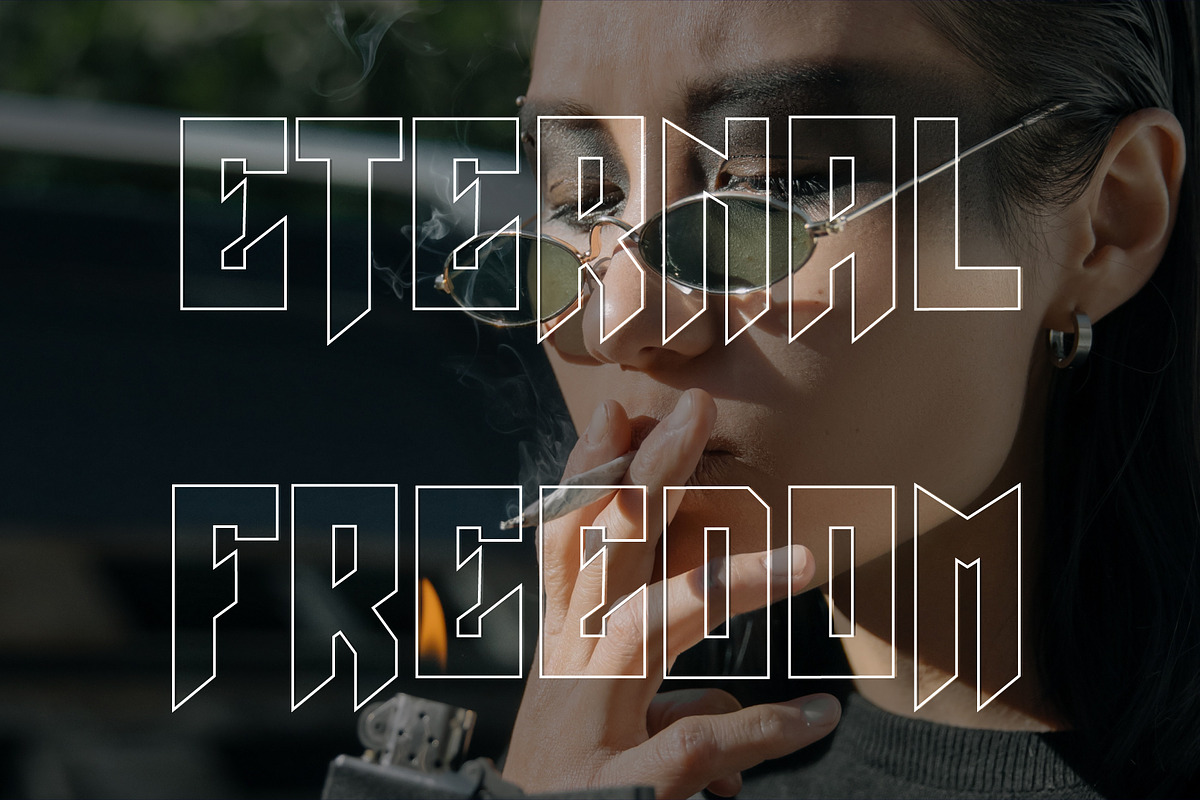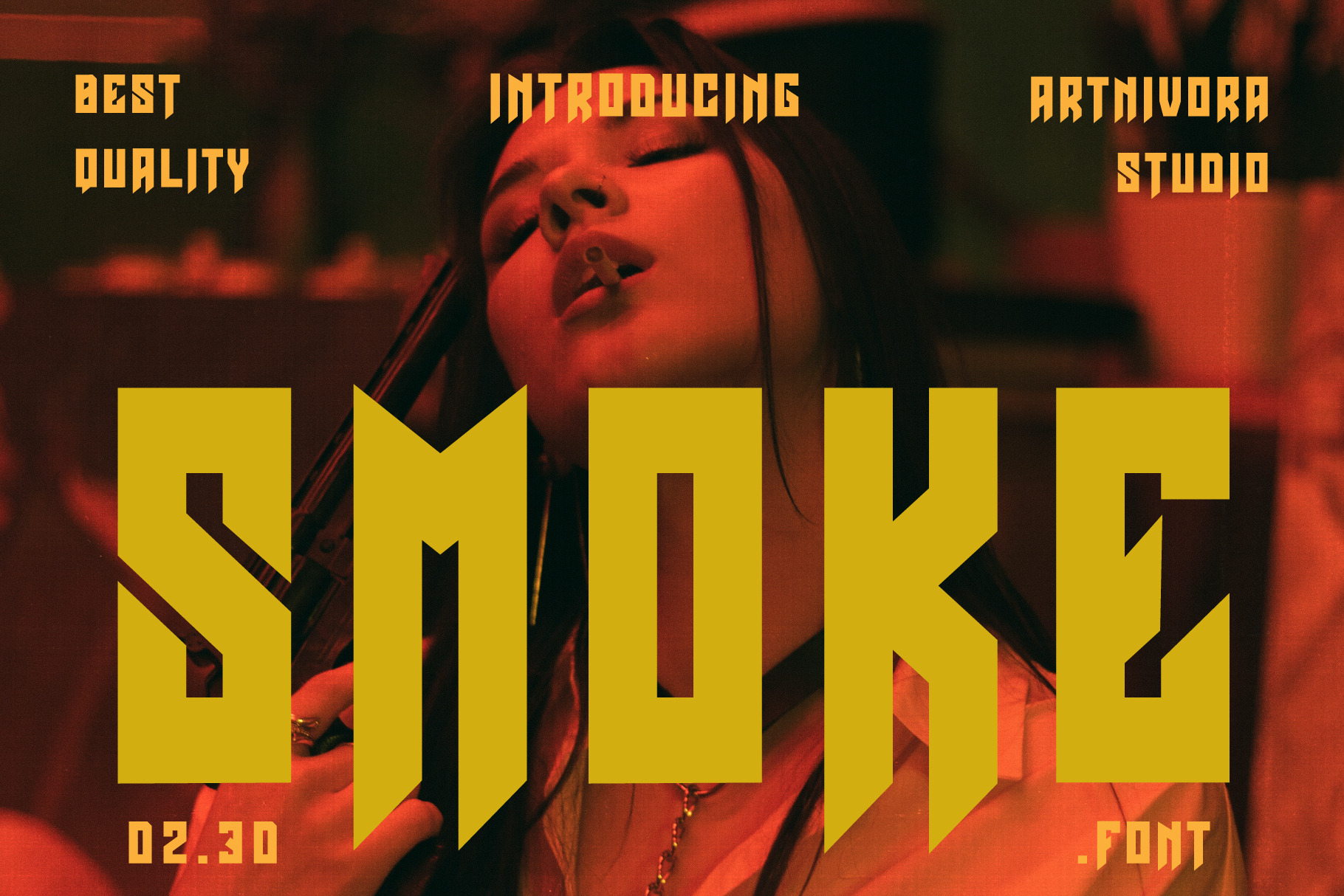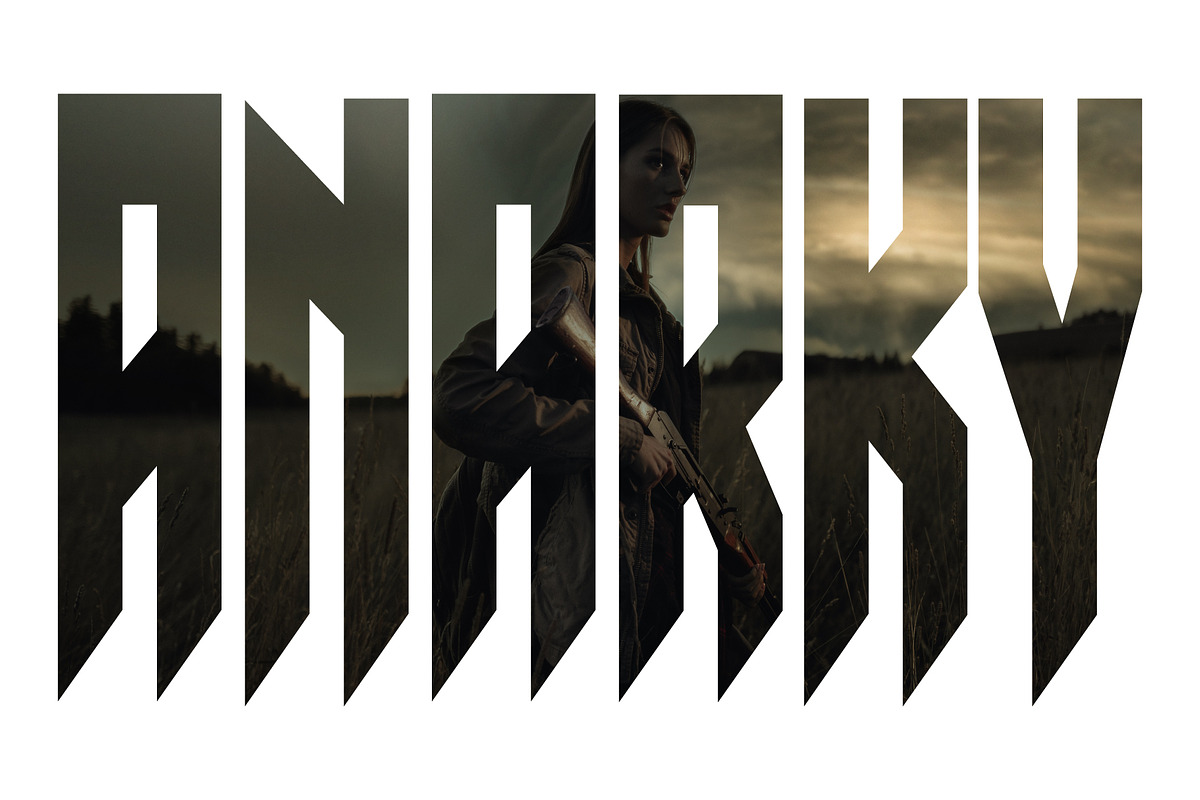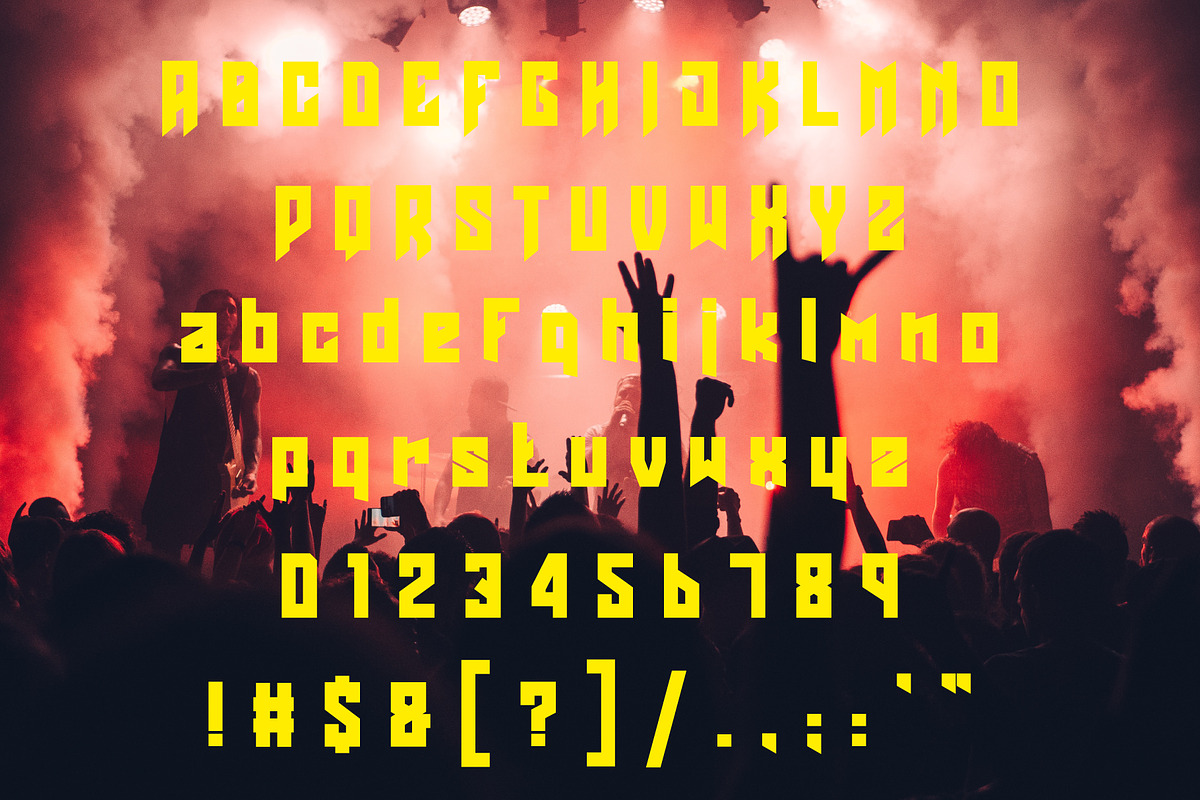
Smoke - Display Font
Introducing Smoke, a modern, aggressive, and strong font. So perfect for you who needs a typeface for logo designs, magazine, social media, brochure, and many more.